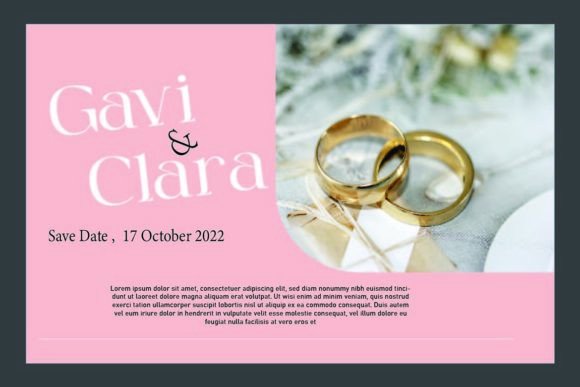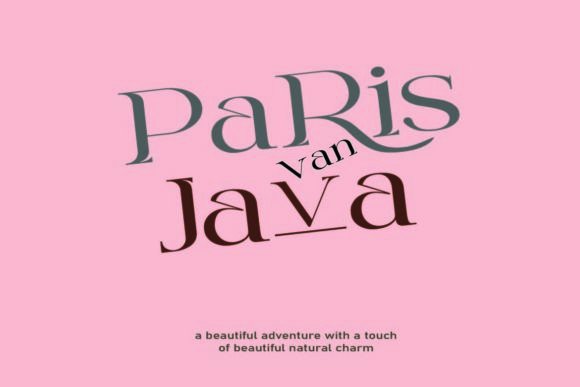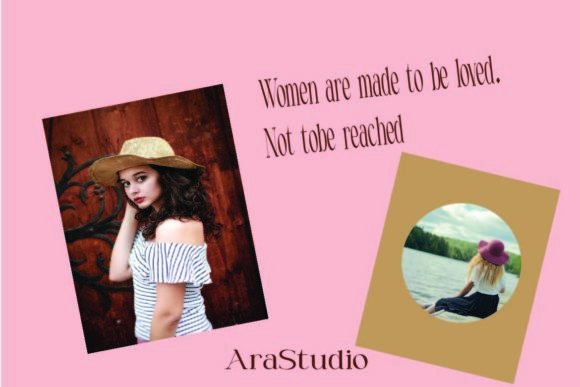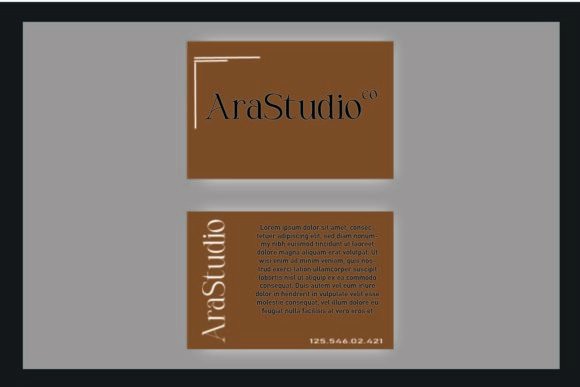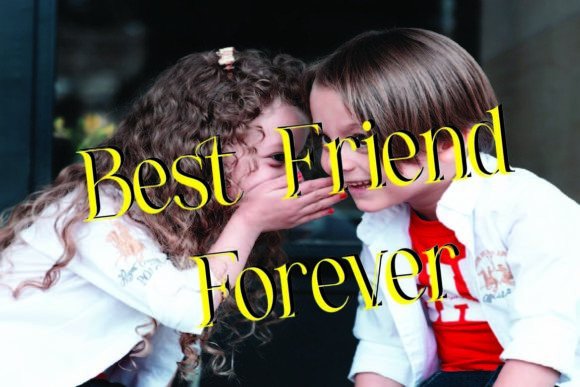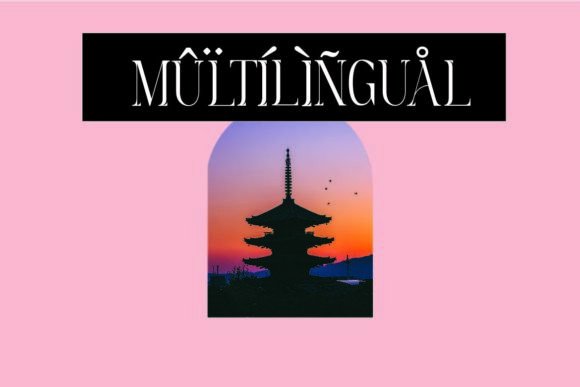
The Designer’s Delight: A Deep Dive into the Gavina Font
I’ll never forget the time I was working on a wedding invitation project, and my client asked for a font that was both elegant and modern. I scoured the internet, tried out countless fonts, but nothing seemed quite right. That was until I stumbled upon the Gavina font. It was love at first sight! 💕 The beautiful, sleek lines and classic serif details instantly won me over. In this article, I’ll share my experience with the Gavina font, its features, and how to make the most of it in your designs.
An Honest Review of Gavina Font
What I Love About Gavina Font
- ✨ Elegant and Modern Design: Gavina’s unique blend of classic serif and modern elements makes it perfect for a wide range of design projects.
- ✅ Highly Versatile: From wedding invitations and fashion magazines to logos, signatures, and watermark photography, Gavina font is an excellent choice.
- 💡 Excellent Legibility: The font’s clear and readable design ensures that your text is easily understood, even at small sizes.
- 🎨 OpenType Features: Gavina font comes with a range of OpenType features, including stylistic alternates, ligatures, and more.
While Gavina font is an excellent choice, there are a few things to keep in mind:
- 🤔 Limited Free Version: Some users have reported that the free version of Gavina font has limited features or characters.
- ⚠️ Not Suitable for Body Text: Due to its elegant and refined design, Gavina font may not be the best choice for large blocks of body text.
The Story Behind Gavina Font
Gavina font was designed with the goal of creating a beautiful, modern serif font that’s both elegant and versatile. The designer aimed to create a font that would be perfect for a wide range of design projects, from wedding invitations to fashion magazines. With its unique blend of classic and modern elements, Gavina font has quickly become a favorite among designers and crafters.
Q: What is the Gavina font best used for?
A: Gavina font is perfect for wedding invitations, fashion magazines, logos, signatures, watermark photography, and many more design projects that require an elegant and modern touch.